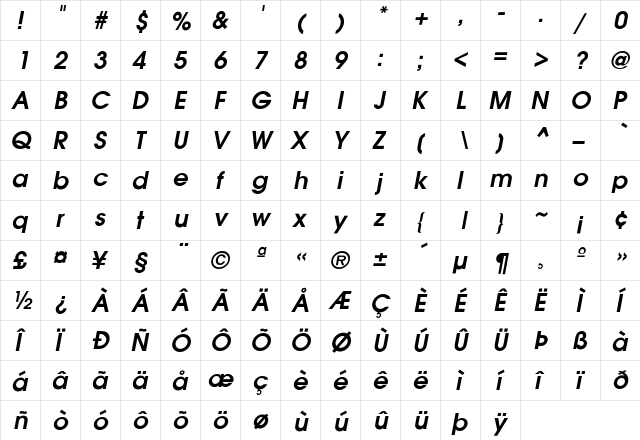
Gardenzi - DemiOblique Regular
Design Context for Gardenzi - DemiOblique Typeface
Gardenzi - DemiOblique takes a measured approach to typography — its balanced proportions and neutral character make it a reliable workhorse for both digital and print work. Its italic angle brings a sense of urgency and motion to the letterforms.
Pro Tip: Try Gardenzi - DemiOblique for annotation and caption copy alongside an upright companion — the contrast in angle creates a dynamic but ordered typographic system.